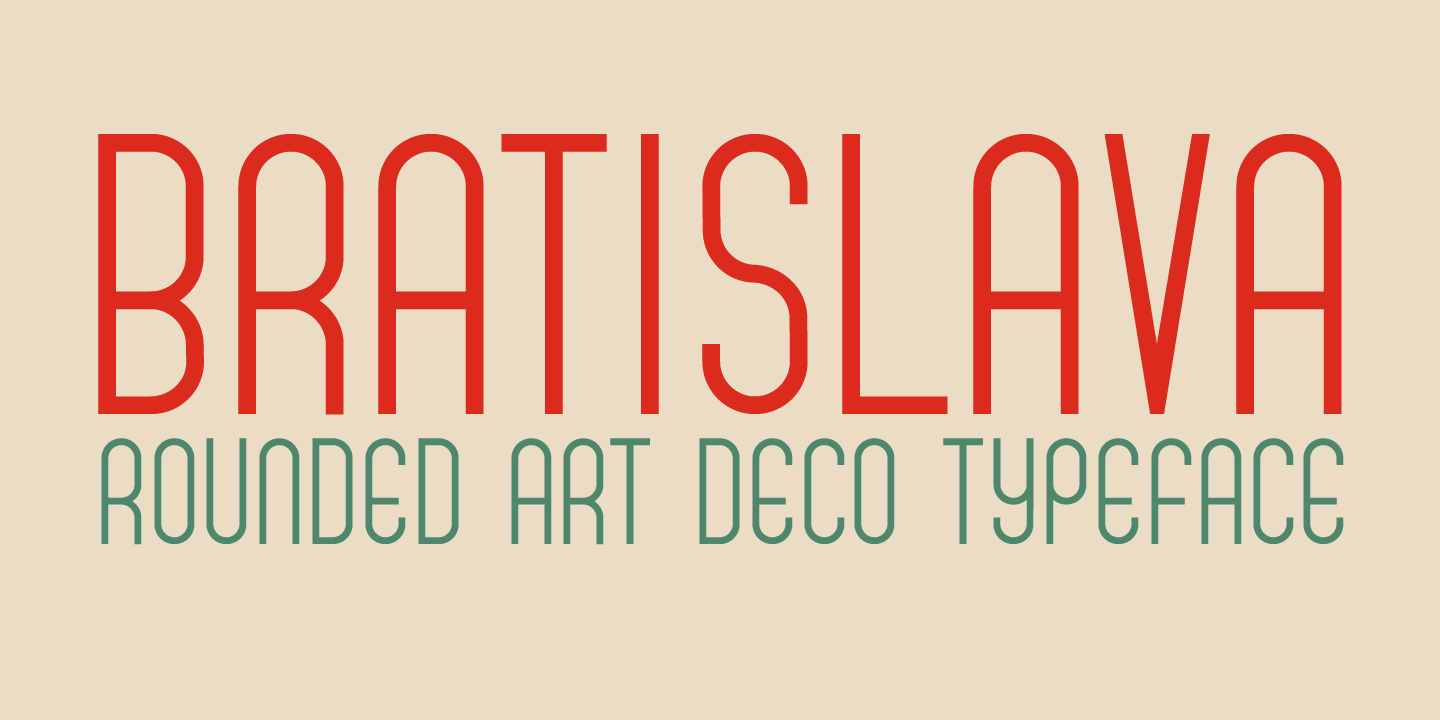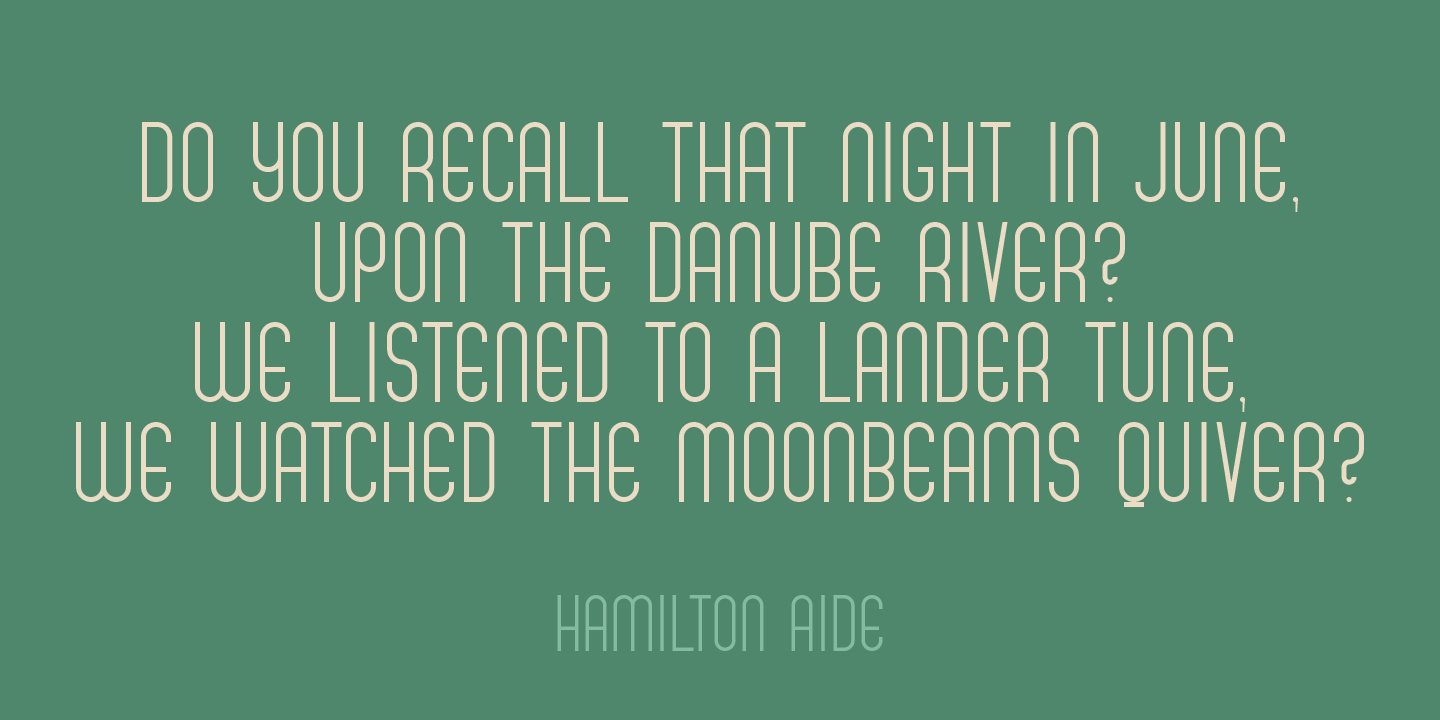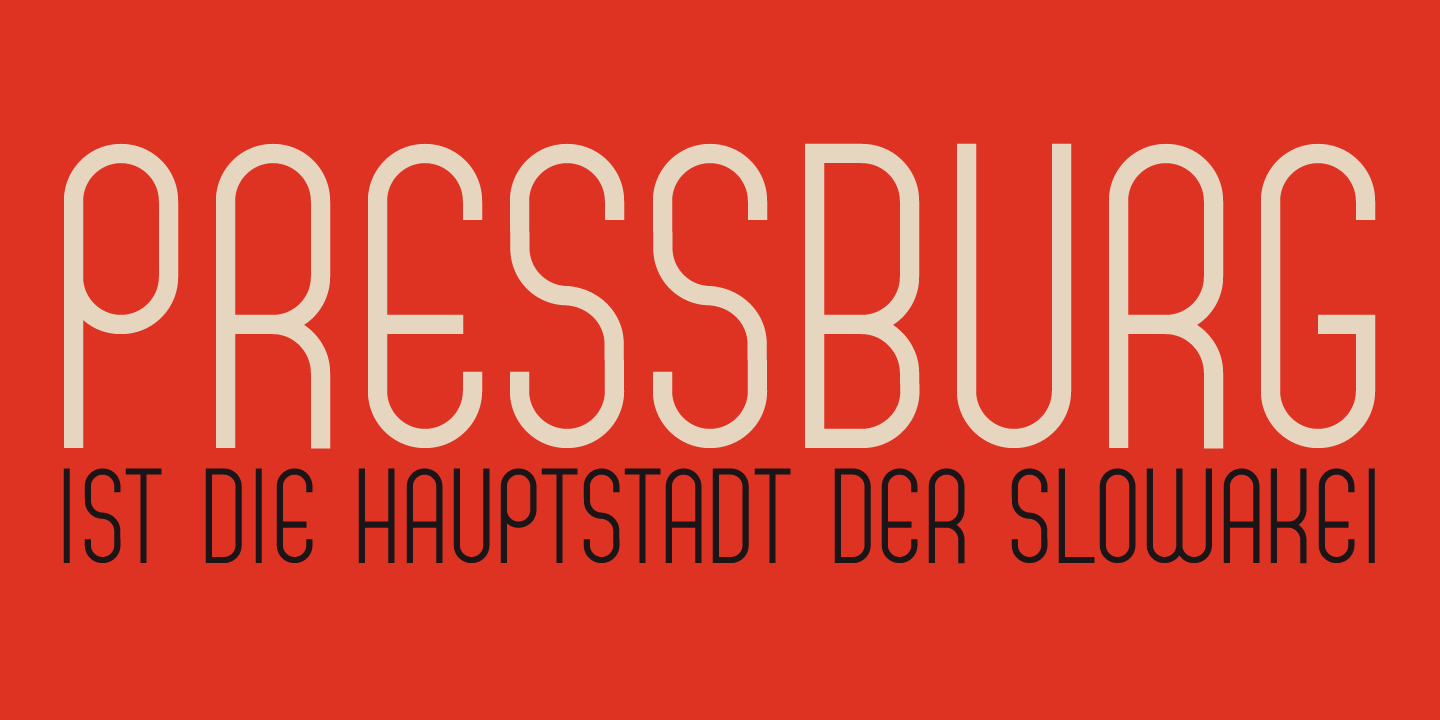
Bratislava
Bratislava is a rounded and elongated art deco typeface, based on several posters from the 1920's. Bratislava is slender and elegant and would look good on packaging and posters.